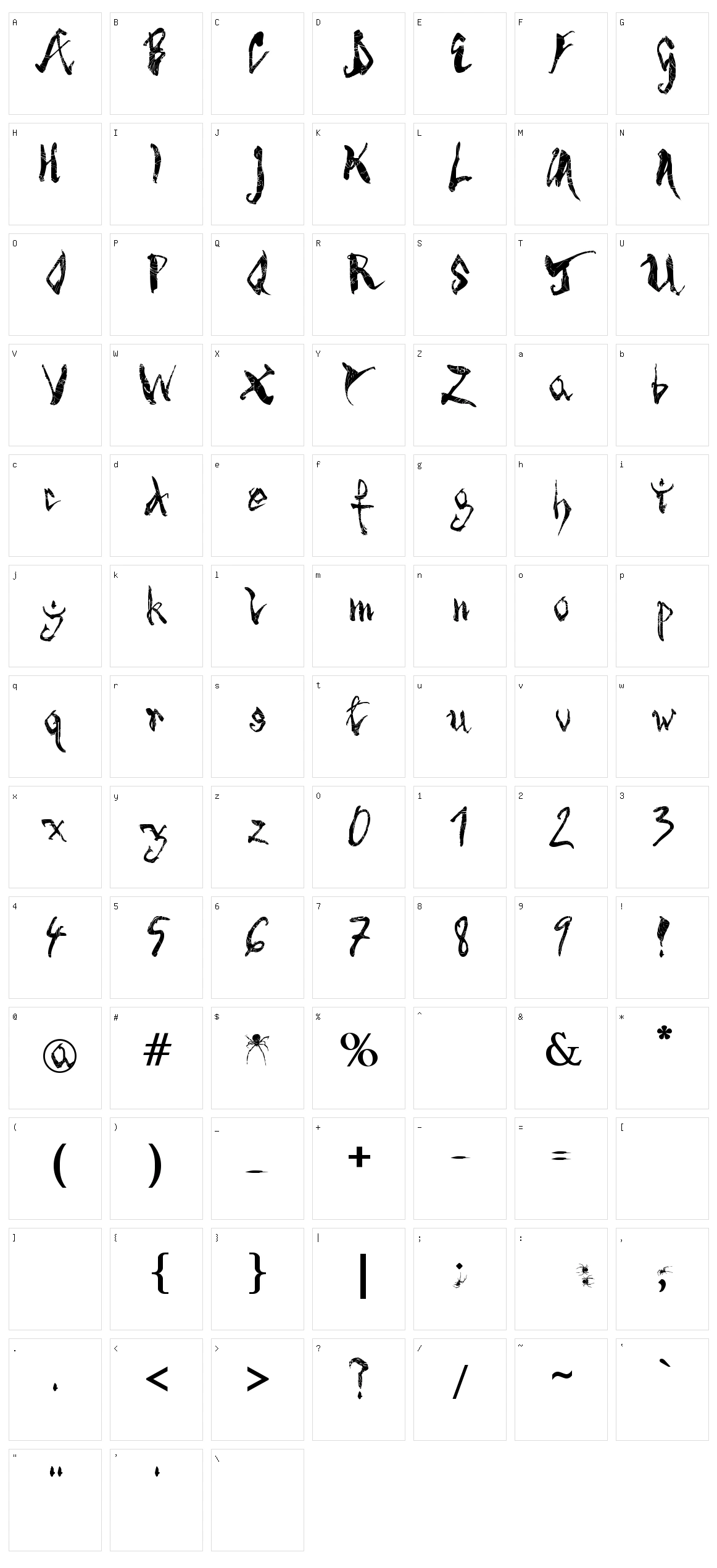
Spider Bite Font by MJ
Created 2009, hand-lettered.
This font is intended for specialty and graphic uses. It will look just awful if used in a paragraph format. More